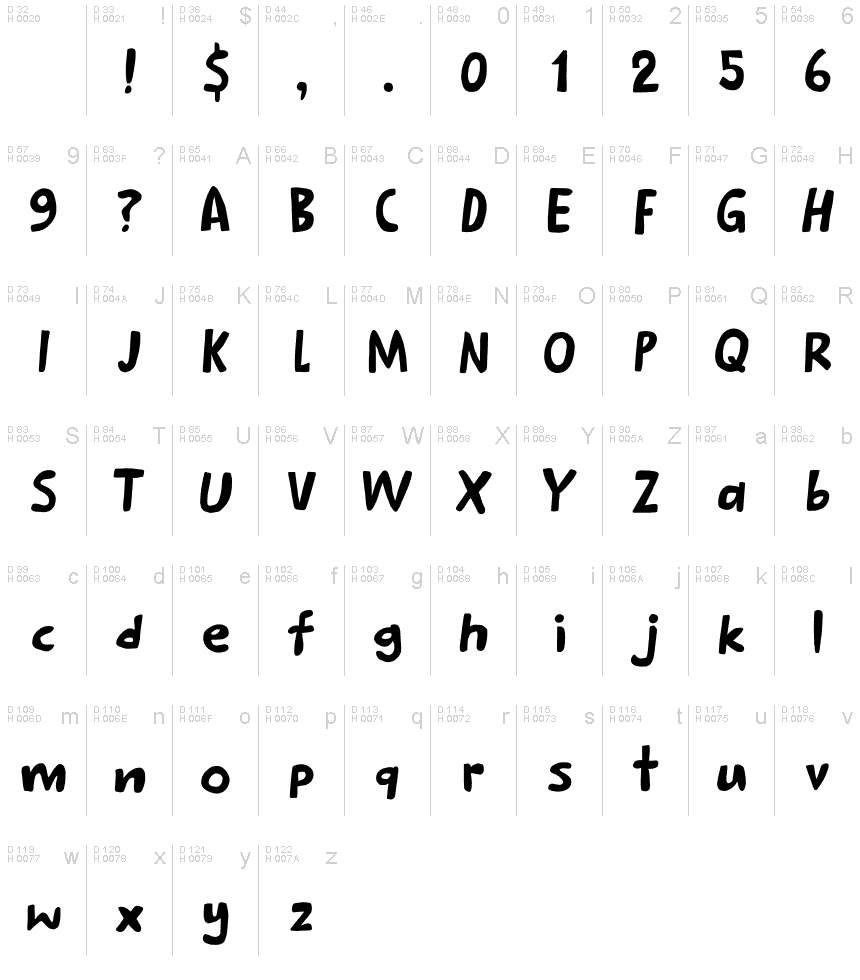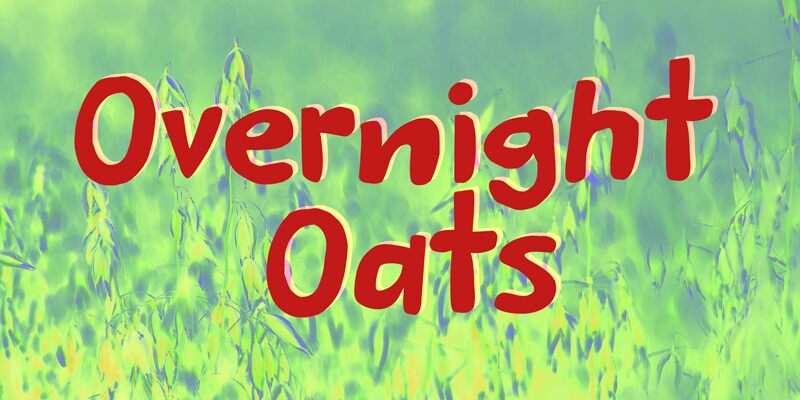
Overnight Oats DEMO Regular
Overnight Oats, designed by Hanoded, is a playful and engaging display font that captures the whimsical charm of comic style typography. With its hand-drawn appearance and casual flair, this font exudes a friendly and approachable vibe that is instantly captivating. The uneven baseline and varied stroke weights evoke a sense of spontaneity and authenticity, making it an excellent choice for projects that require a touch of personality.
Its aesthetic appeal lies in its imperfect yet harmonious characters, which are versatile enough for an array of creative endeavors. From eye-catching headlines to informal invitations or quirky product packaging, Overnight Oats adds a delightful twist to traditional comic fonts. Its bold presence ensures legibility while maintaining an endearing quirkiness that can help your project stand out.
Whether you're designing for print or digital media, Overnight Oats brings an element of fun and creativity to the table. Its suitability for children's books, graphic novels, branding projects, and any platform needing a dose of lightheartedness makes it an invaluable asset to designers looking to infuse their work with character and warmth.